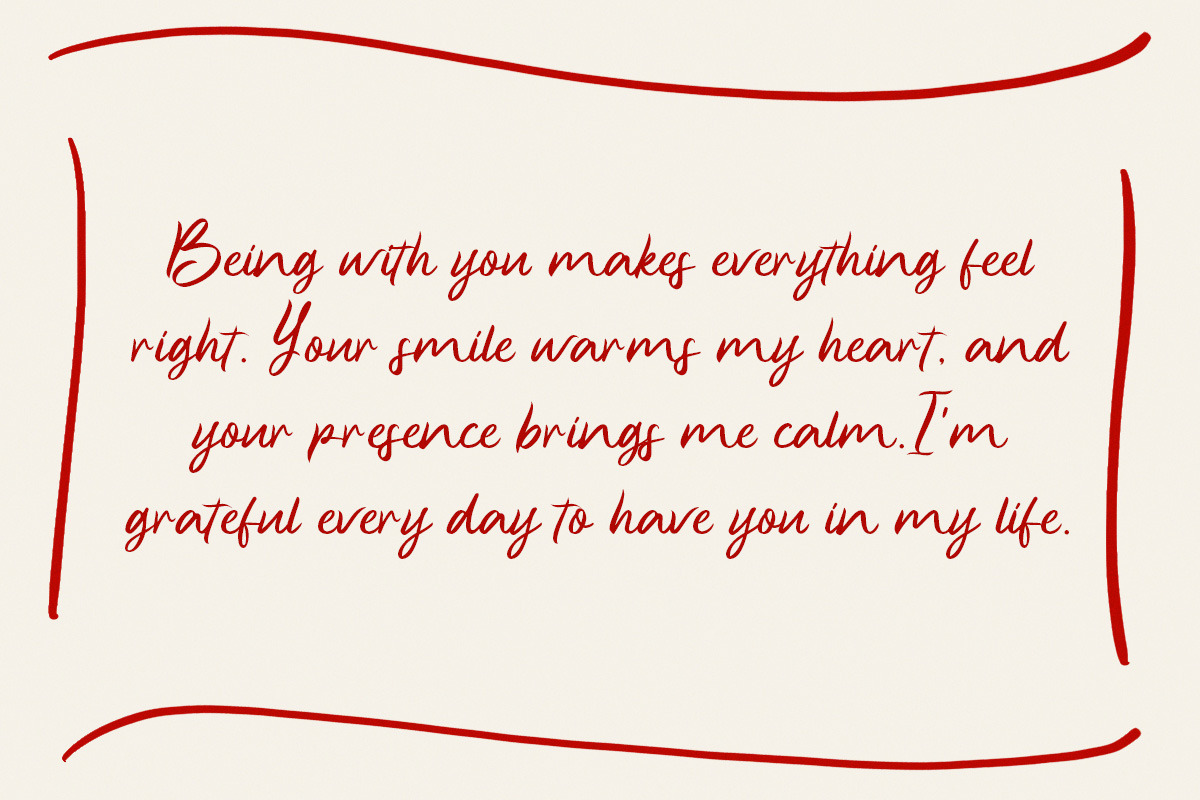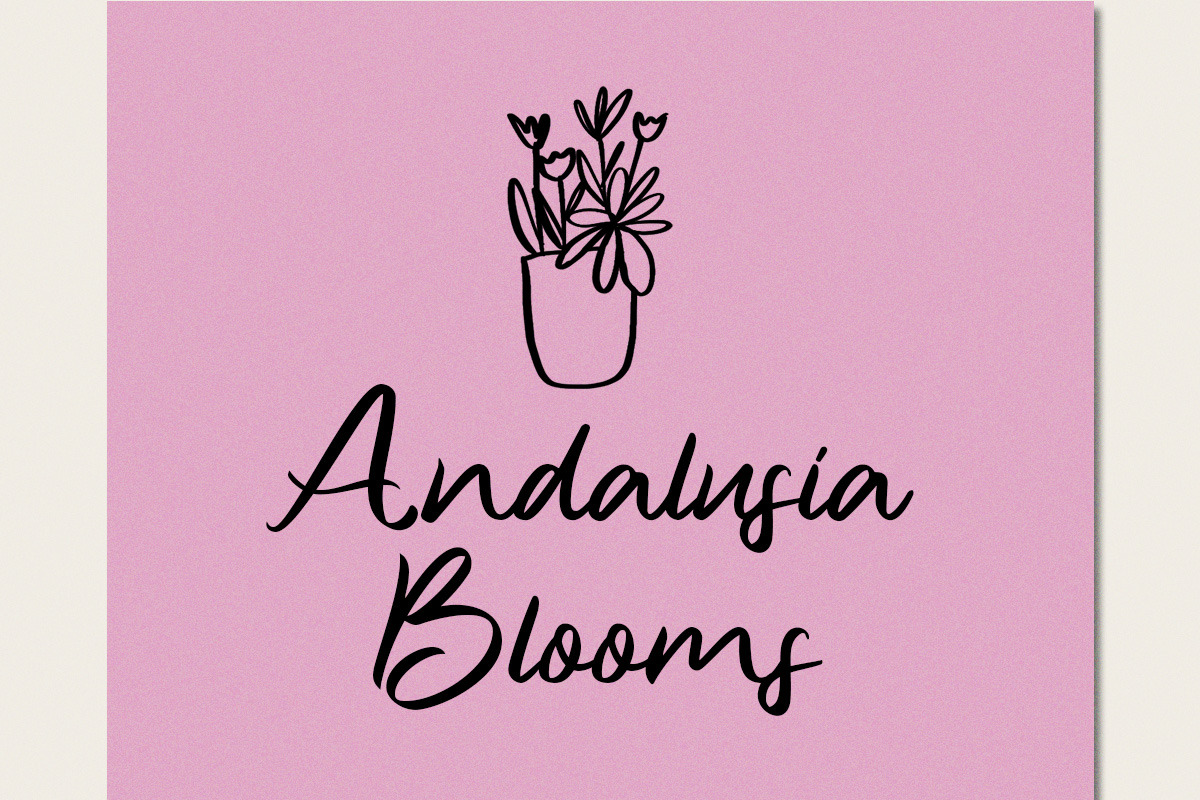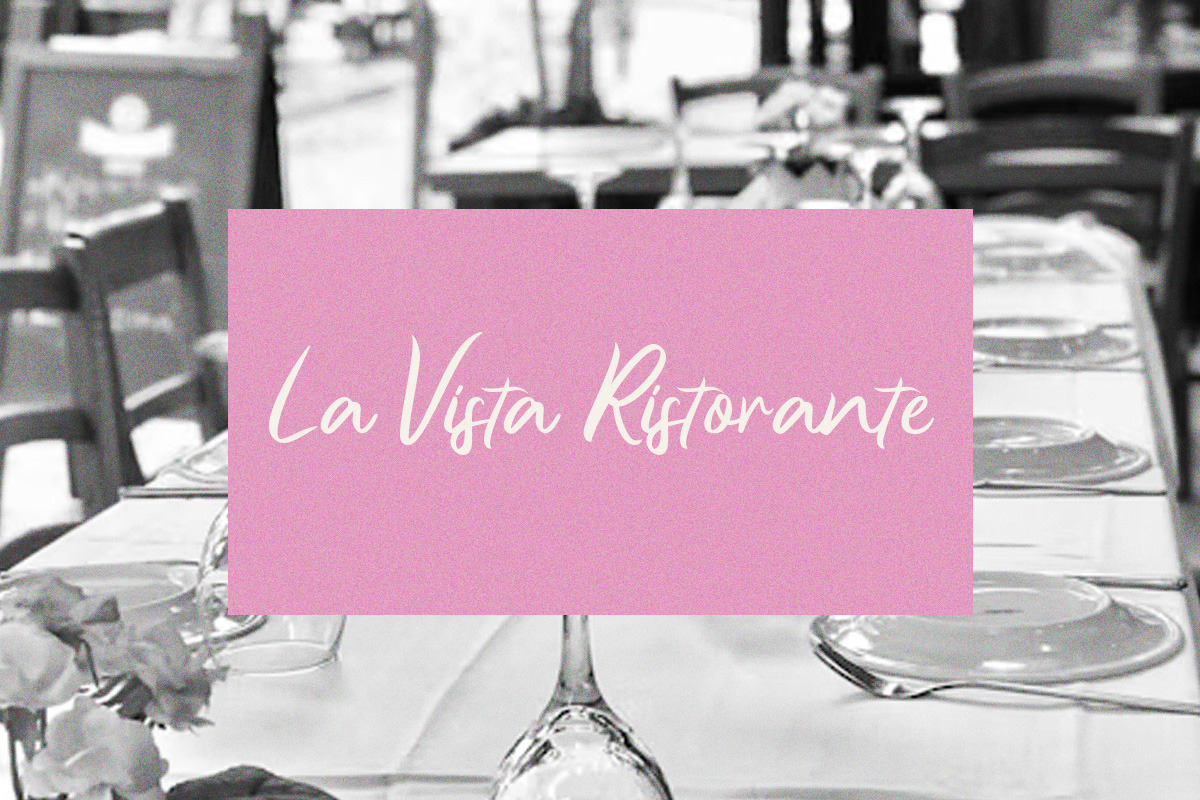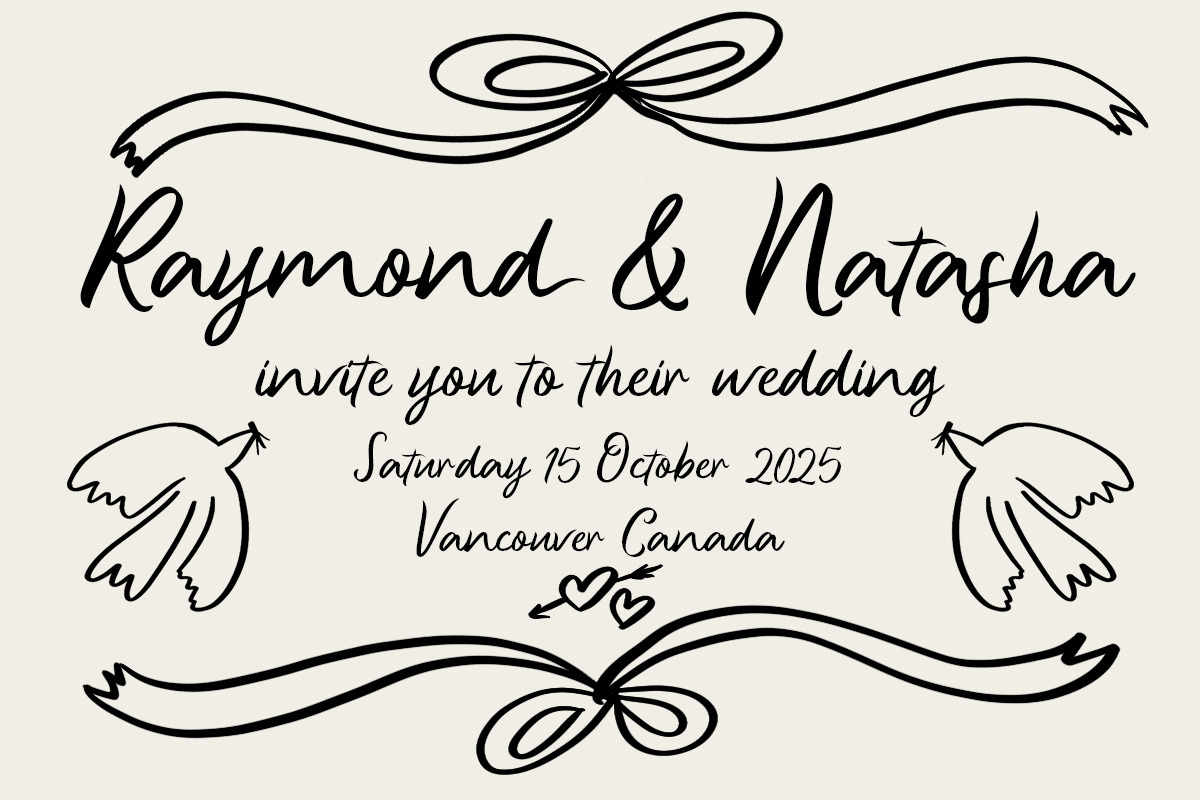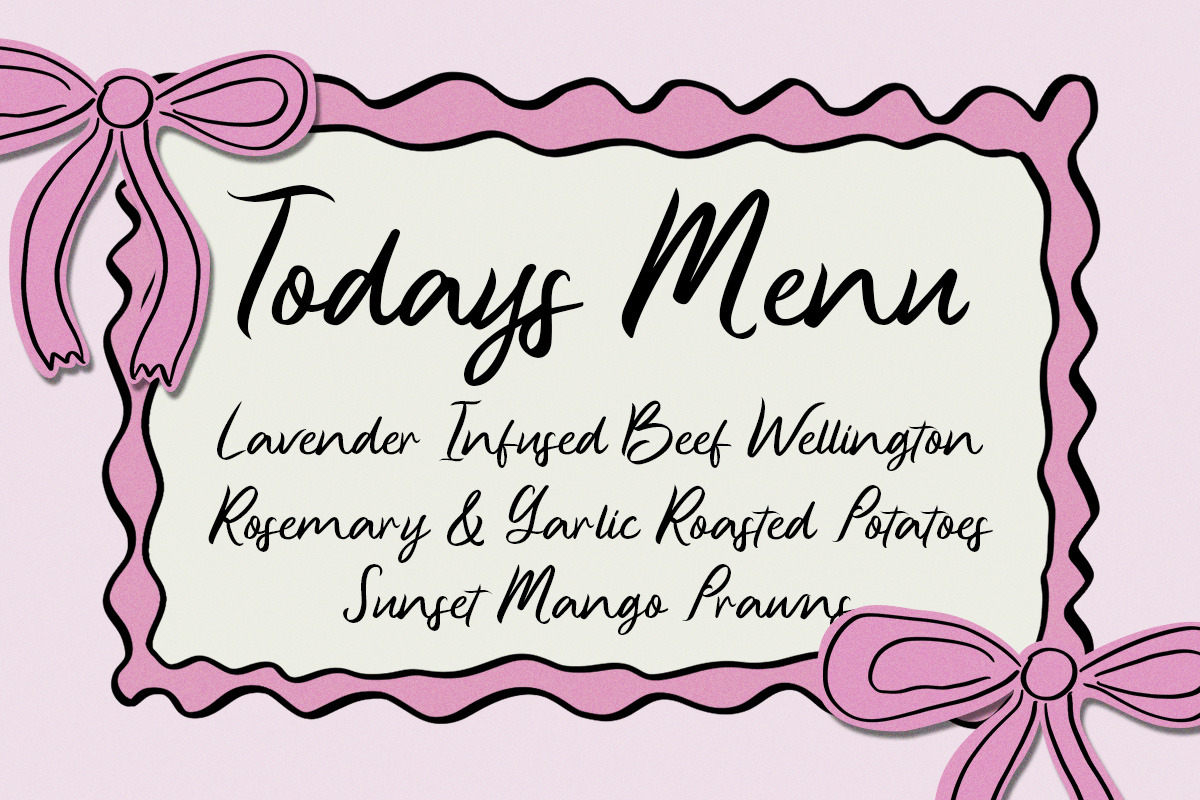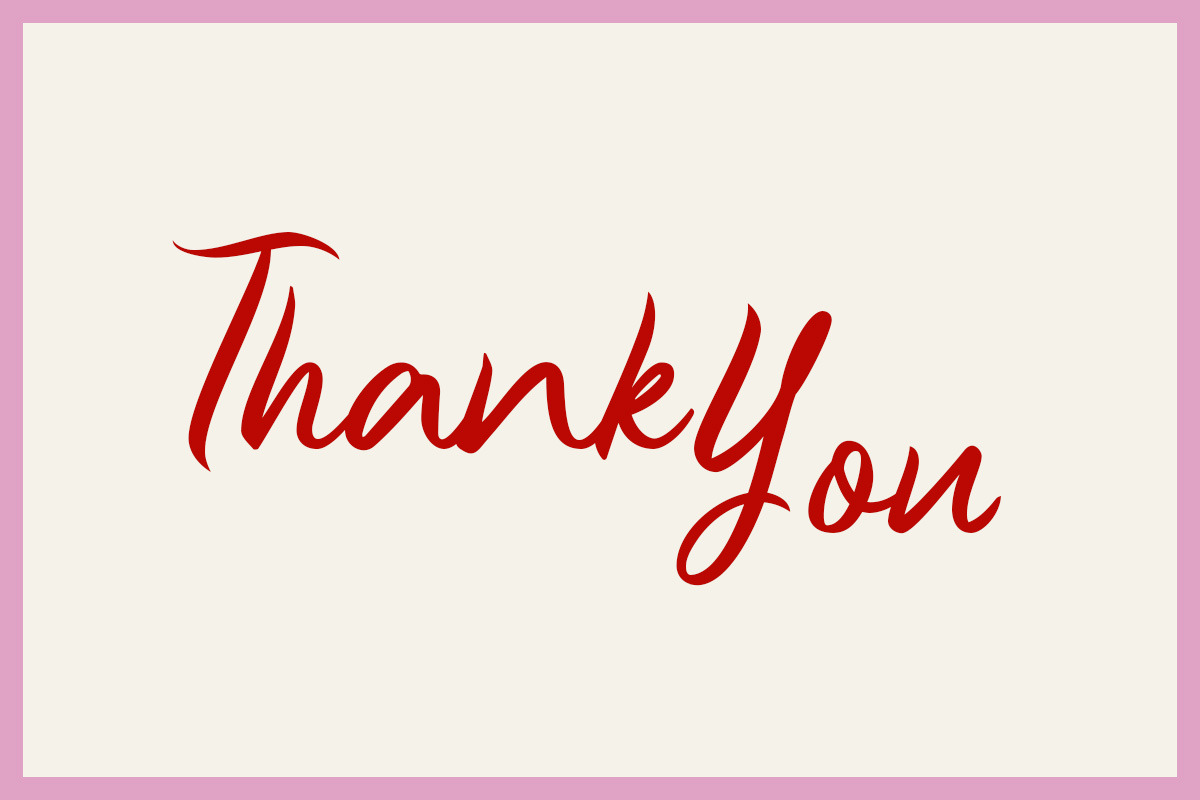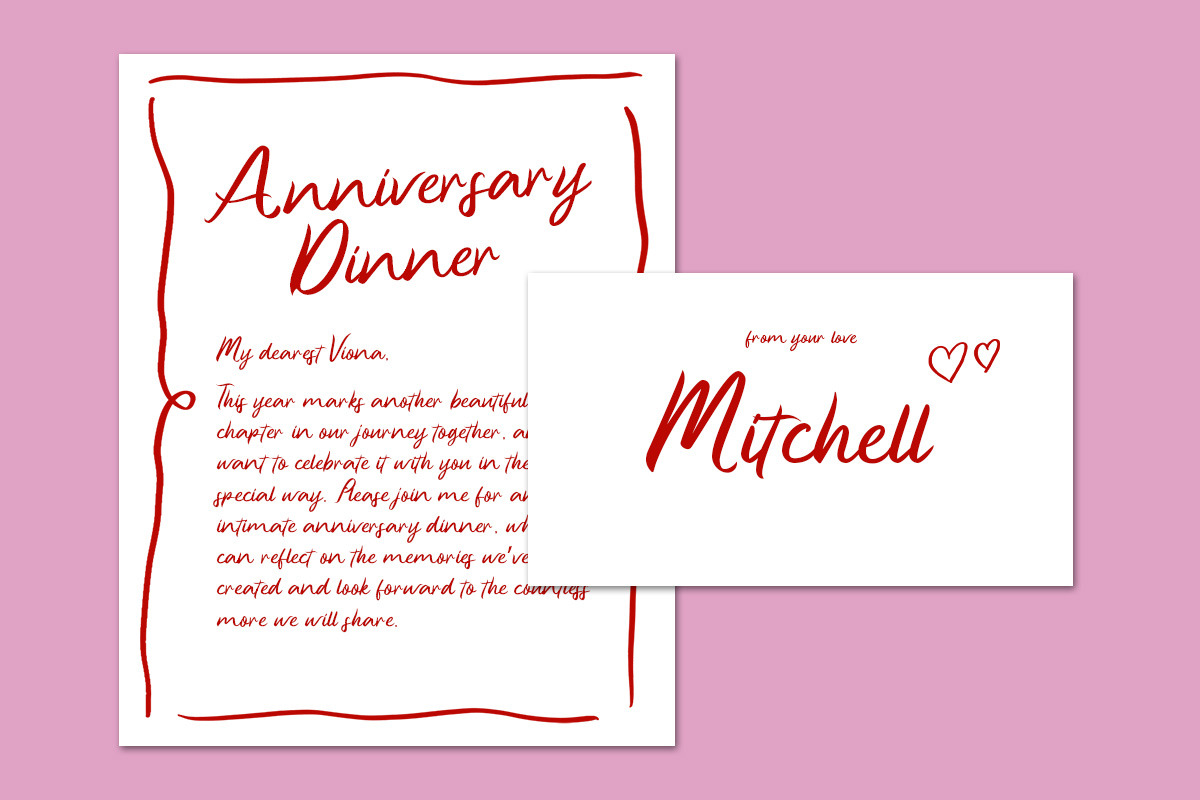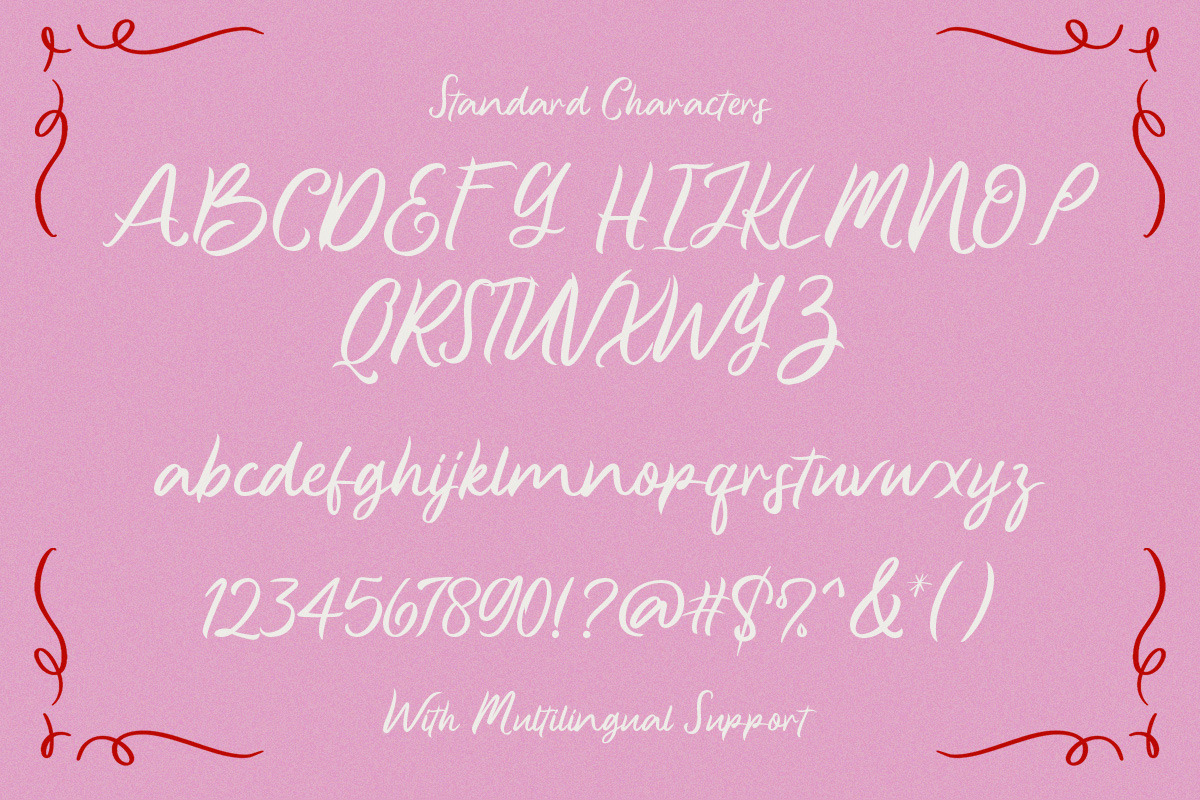
Whispering Pines Handwritten Script
Whispering Pines is a lovely handwritten script font that exudes elegance and warmth. Its flowing, natural strokes make it perfect for adding a personal and sophisticated touch to your designs.